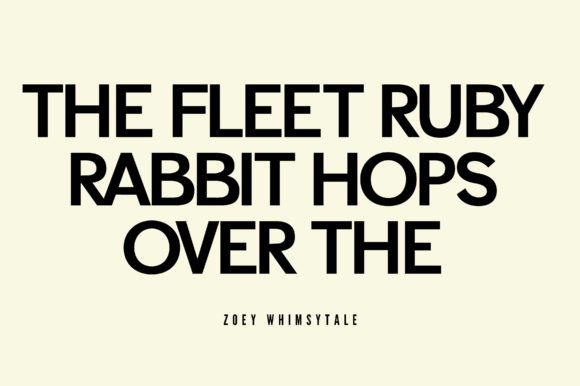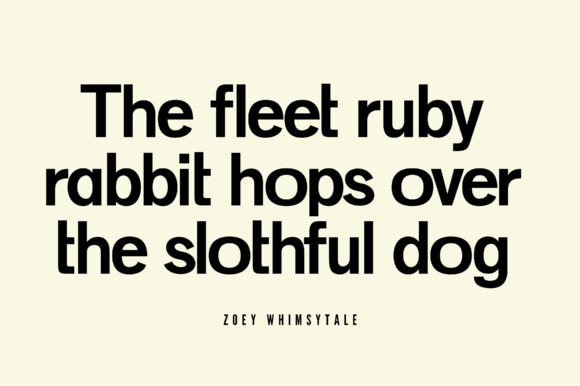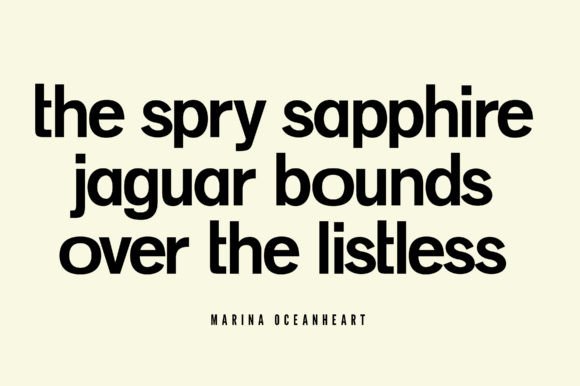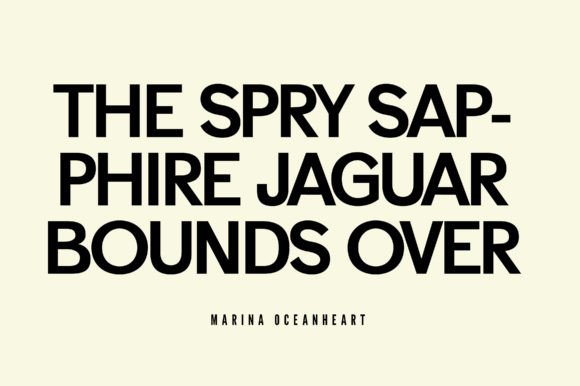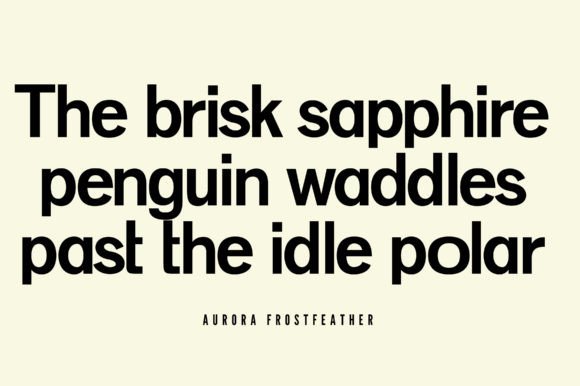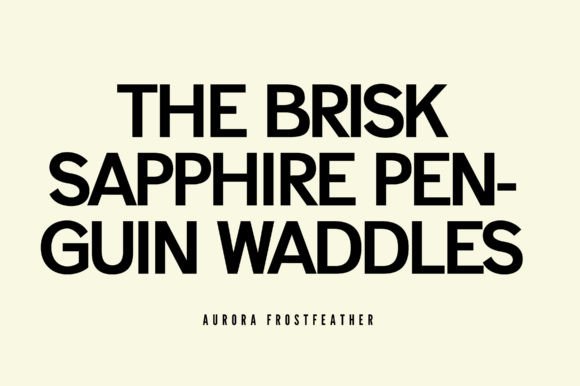
Essenek Font: Elevate Your Designs with Modern Elegance
In the world of typography, a well-crafted font can make all the difference in elevating your design to the next level. Introducing Essenek, a chic and modern sans serif typeface that exudes effortless elegance. With its clean lines and versatile design, Essenek is the perfect choice for various projects, from branding to editorial layouts.
The Essence of Essenek
Essenek’s design is characterized by its minimalist and innovative style, making it an ideal choice for designers and crafters looking to make a bold statement. The font’s clean lines and simple shapes create a sense of sophistication and elegance, ensuring your message stands out and leaves a lasting impression.
One of the key benefits of Essenek is its versatility. The font can be used in a wide range of projects, from branding and advertising to editorial layouts and digital media. Whether you’re designing a logo, brochure, or website, Essenek’s modern and sleek design ensures your message is conveyed with clarity and style.
User-Friendly and Accessible
Essenek’s user-friendly nature makes it accessible to designers of all levels, from seasoned professionals to beginners. The font’s simplicity and elegance ensure it’s easy to pair with other fonts and design elements, making it a great addition to any design project.
Key Features of Essenek
- Modern sans serif typeface: Essenek’s clean lines and simple shapes create a sense of sophistication and elegance.
- Versatile design: Suitable for various projects, from branding to editorial layouts.
- Minimalist and innovative style: Ensures your message stands out and leaves a lasting impression.
- User-friendly nature: Accessible to designers of all levels, from beginners to seasoned professionals.
Why Choose Essenek?
With so many fonts available, why choose Essenek? Here are just a few reasons:
- Unique and distinctive: Essenek’s modern design ensures your project stands out from the crowd.
- Elegant and sophisticated: The font’s clean lines and simple shapes create a sense of luxury and refinement.
- Flexible and adaptable: Suitable for a wide range of projects and design applications.
Tips for Using Essenek
To get the most out of Essenek, here are a few tips:
- Pair with bold colors: Essenek’s minimalist design pairs perfectly with bold and bright colors.
- Experiment with font sizes: The font’s versatility ensures it looks great in a range of font sizes.
- Use in combination with other fonts: Essenek’s simplicity makes it easy to pair with other fonts and design elements.
Essenek is a chic and modern sans serif typeface that exudes effortless elegance. With its clean lines and versatile design, it’s the perfect choice for various projects, from branding to editorial layouts. Whether you’re a seasoned designer or a beginner, Essenek’s user-friendly nature makes it a great addition to any design project. Embrace modernity and make a bold statement with Essenek today!